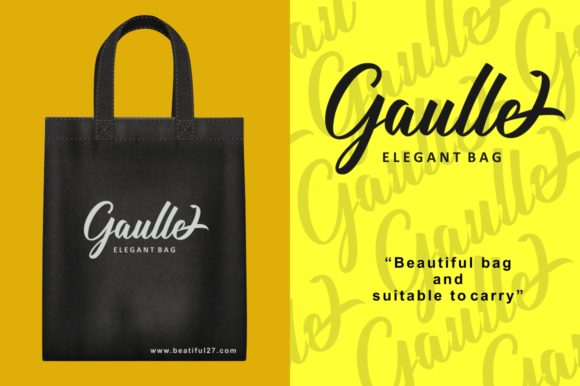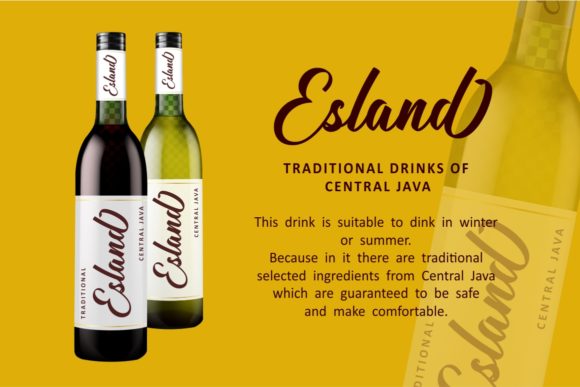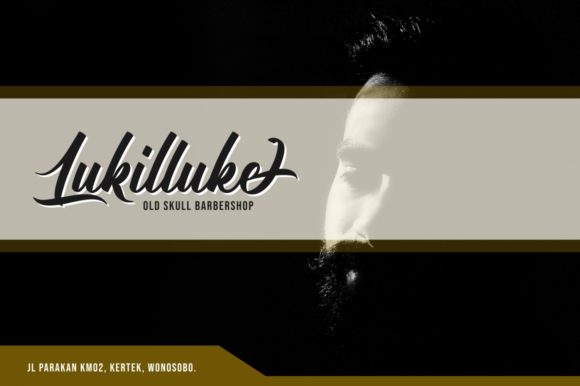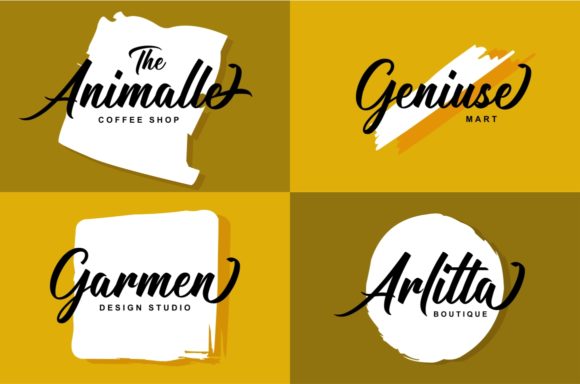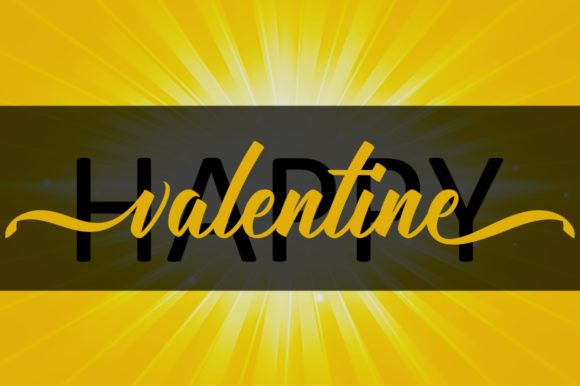
Ardsttandsille Font
About Ardsttandsille Font
Ardsttandsille is a bold and glamorous script font. This font is PUA encoded which means you can access all of the awesome glyphs and swashes with ease! It also features a wealth of special features including alternate glyphs and ligatures. It will add a great touch to any crafting project.